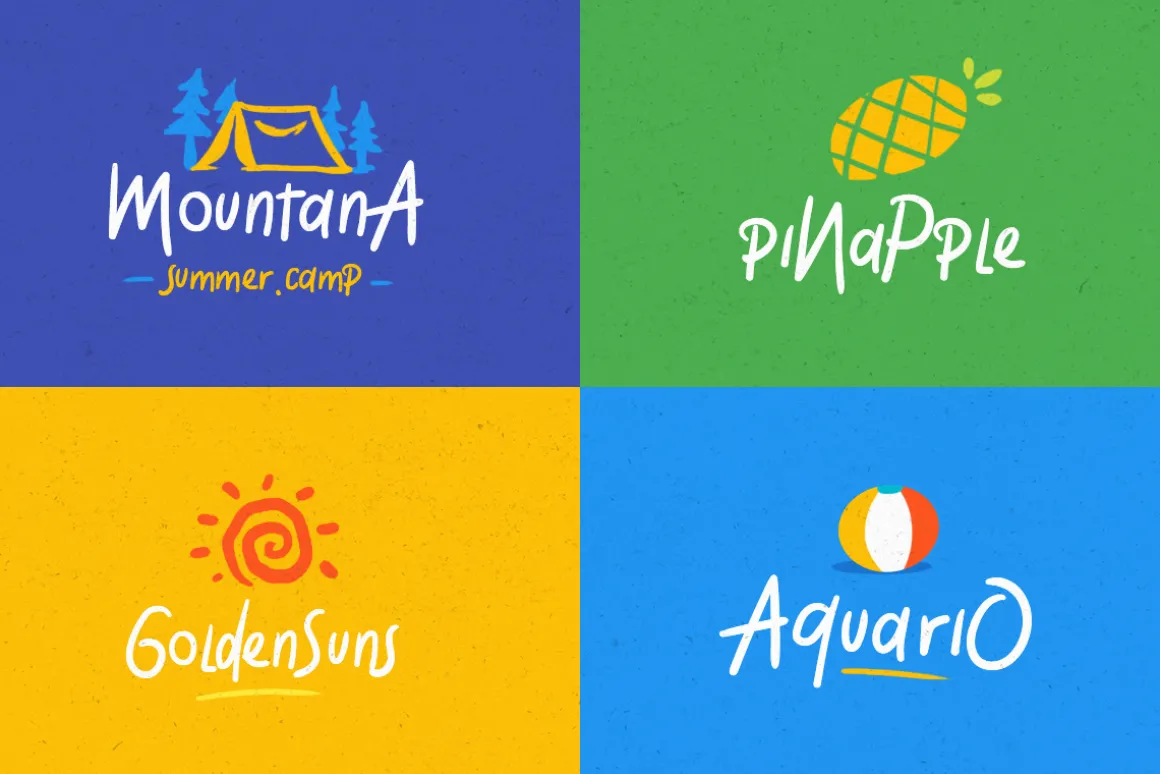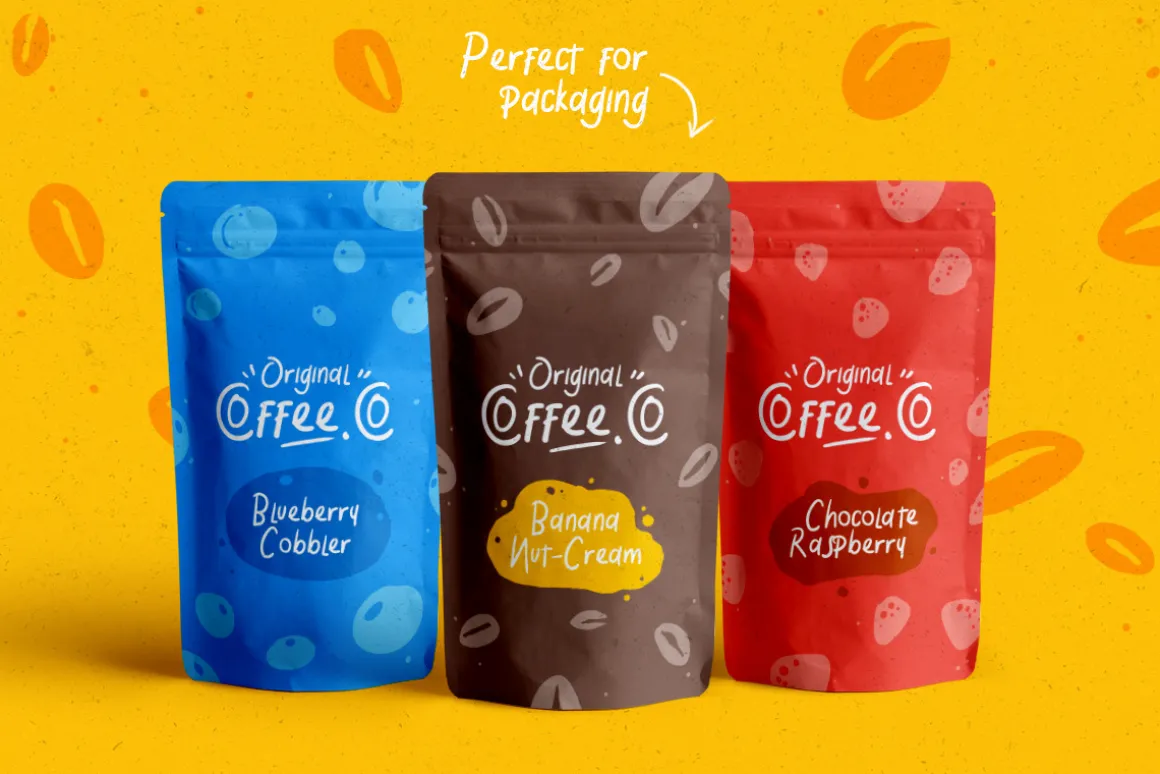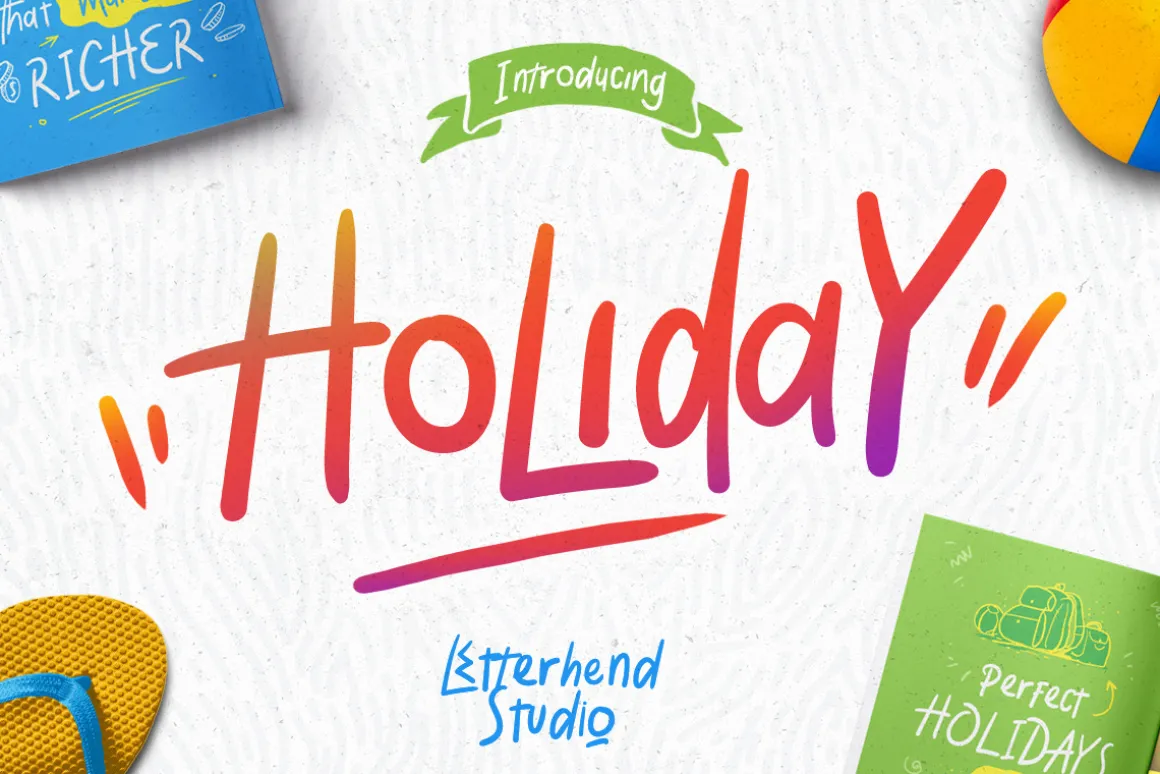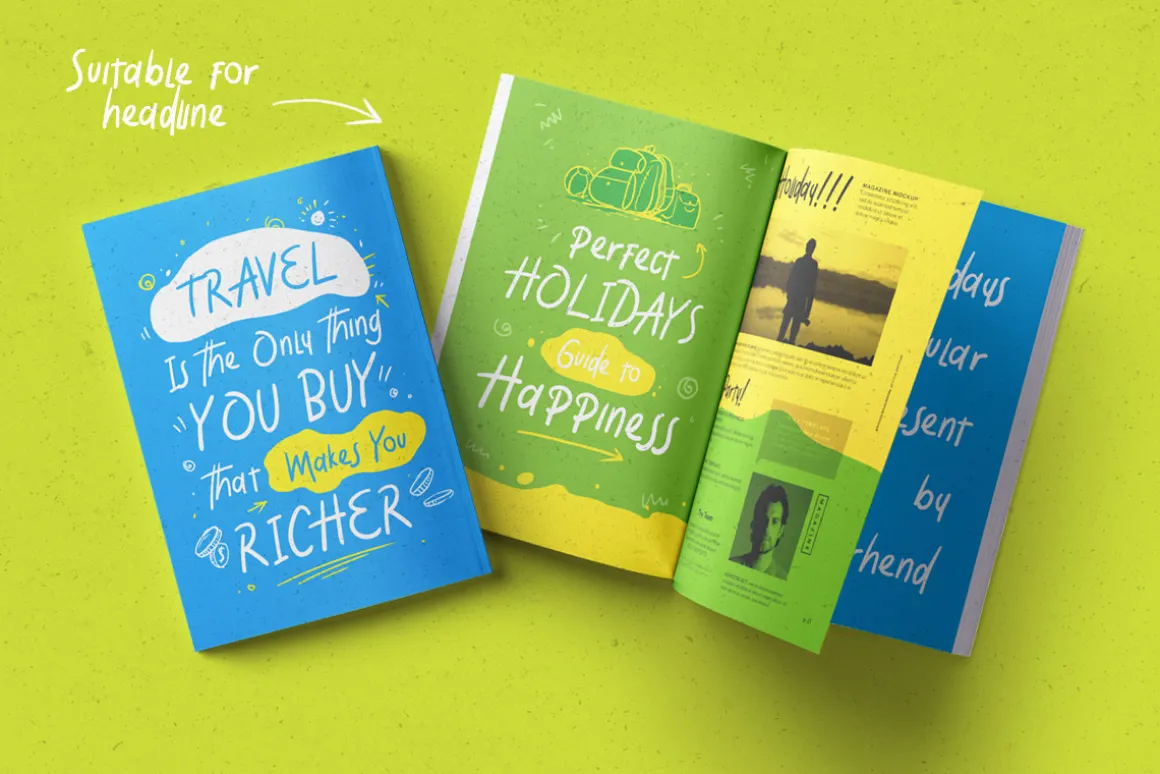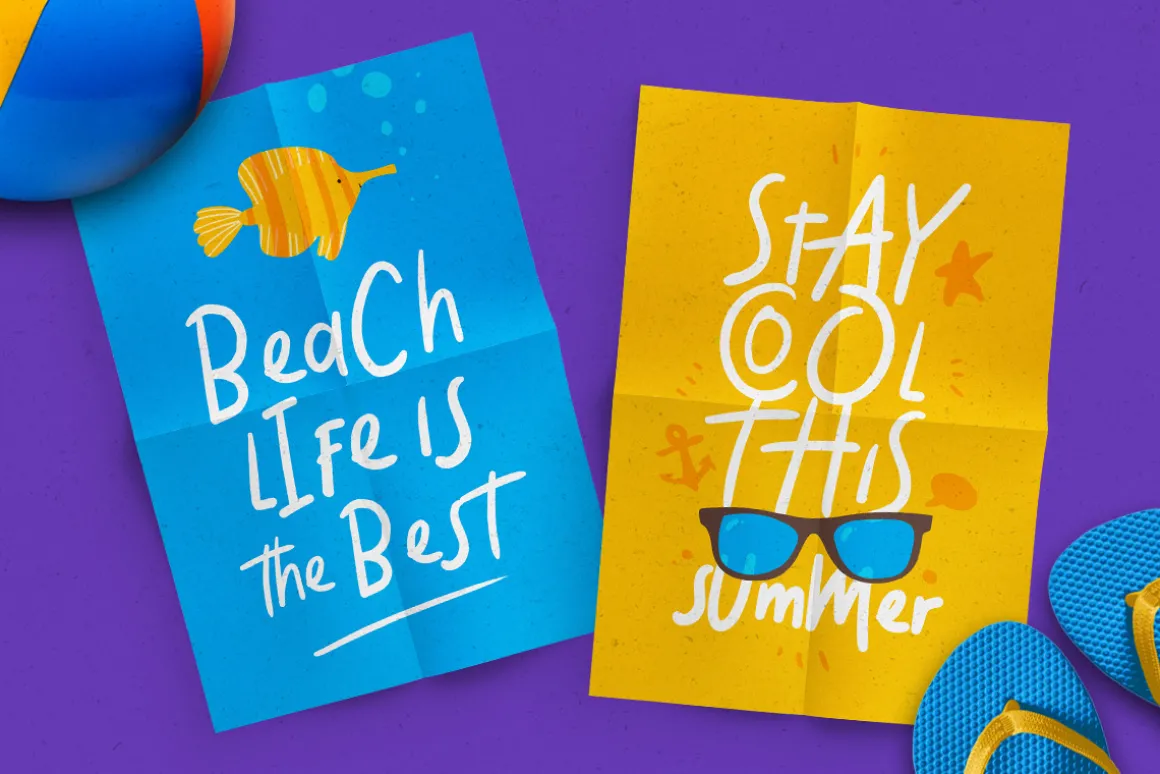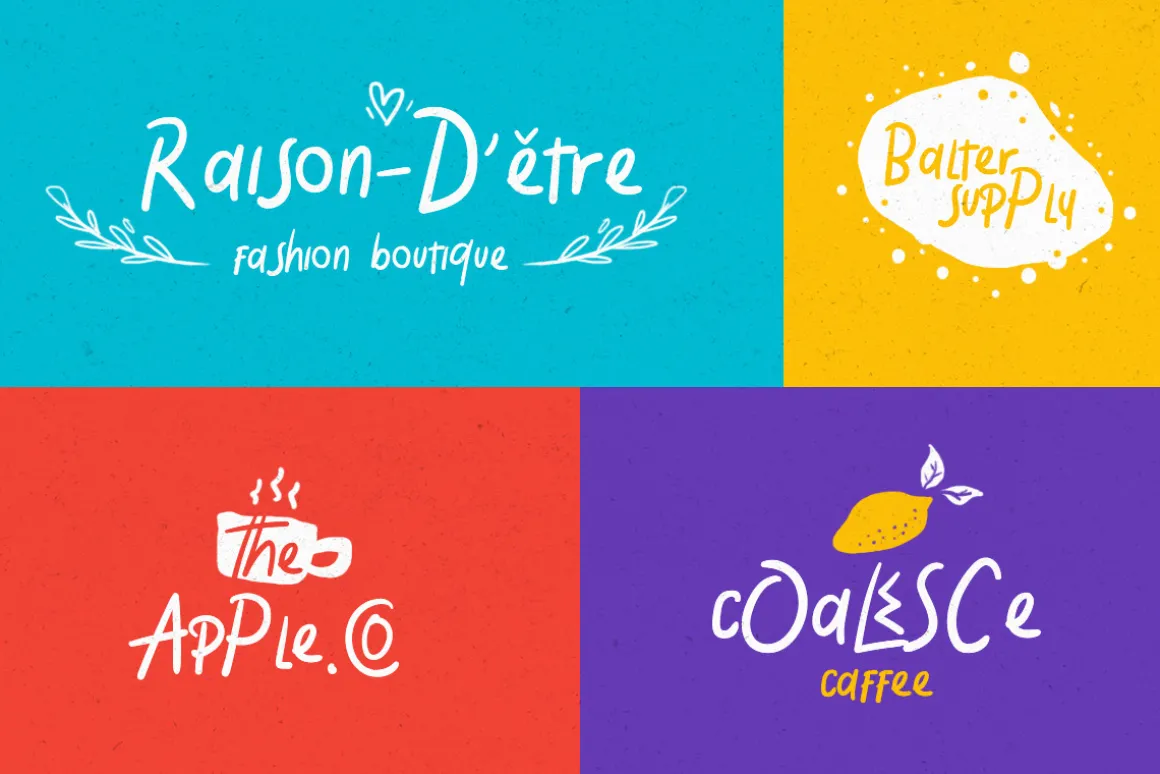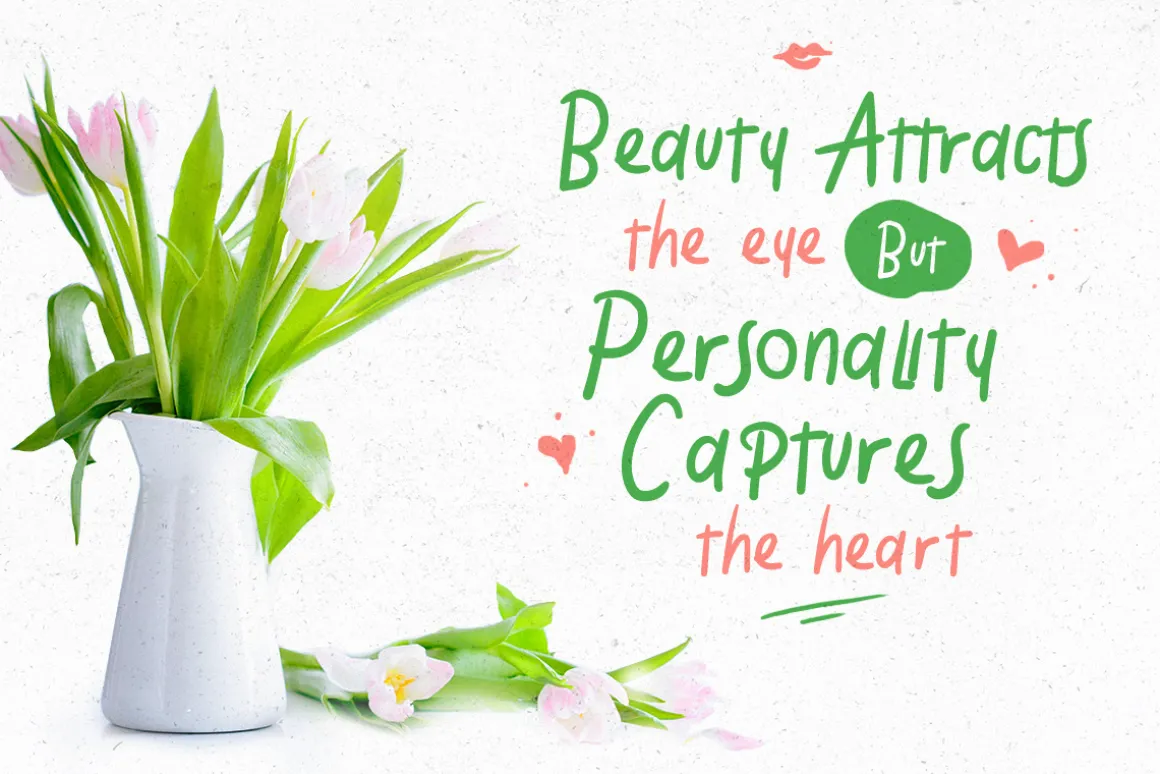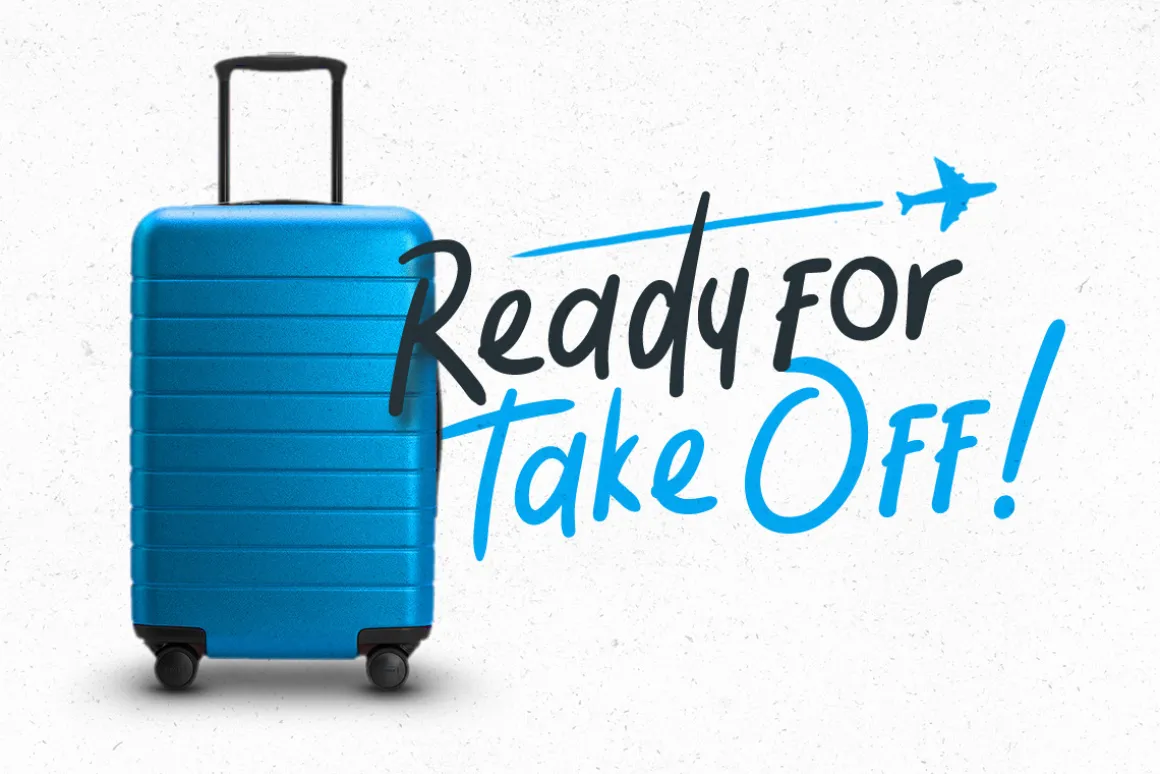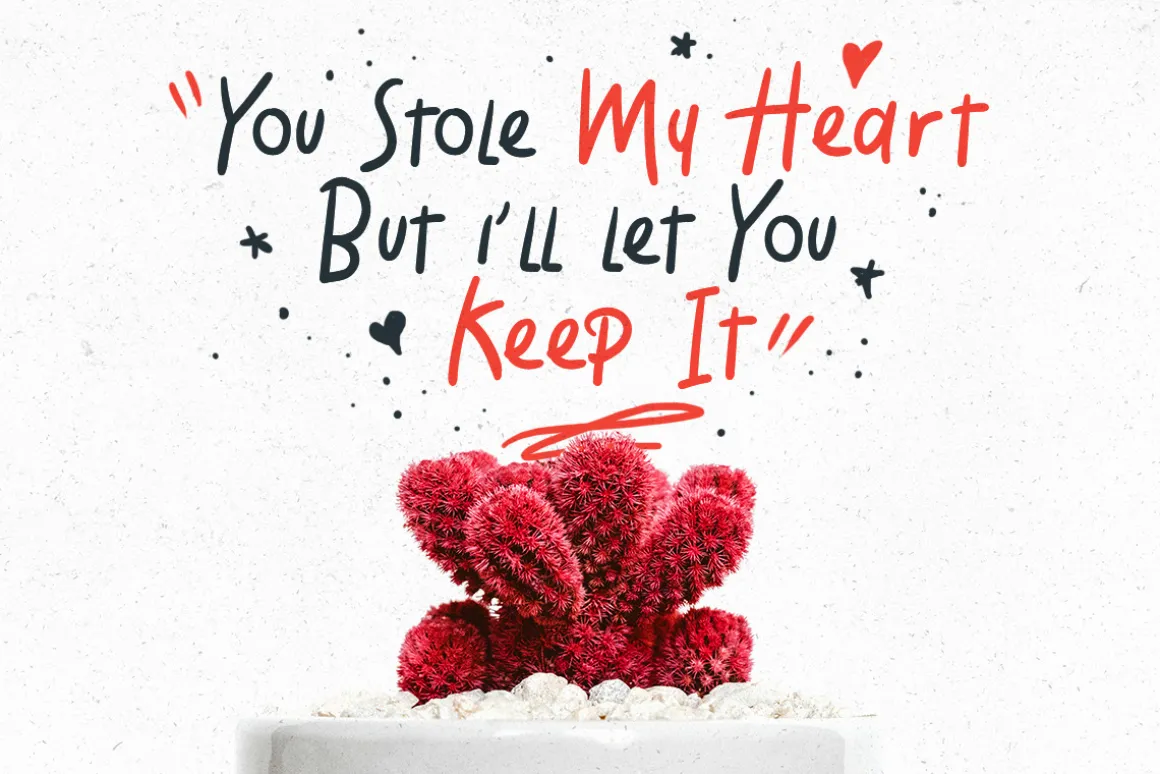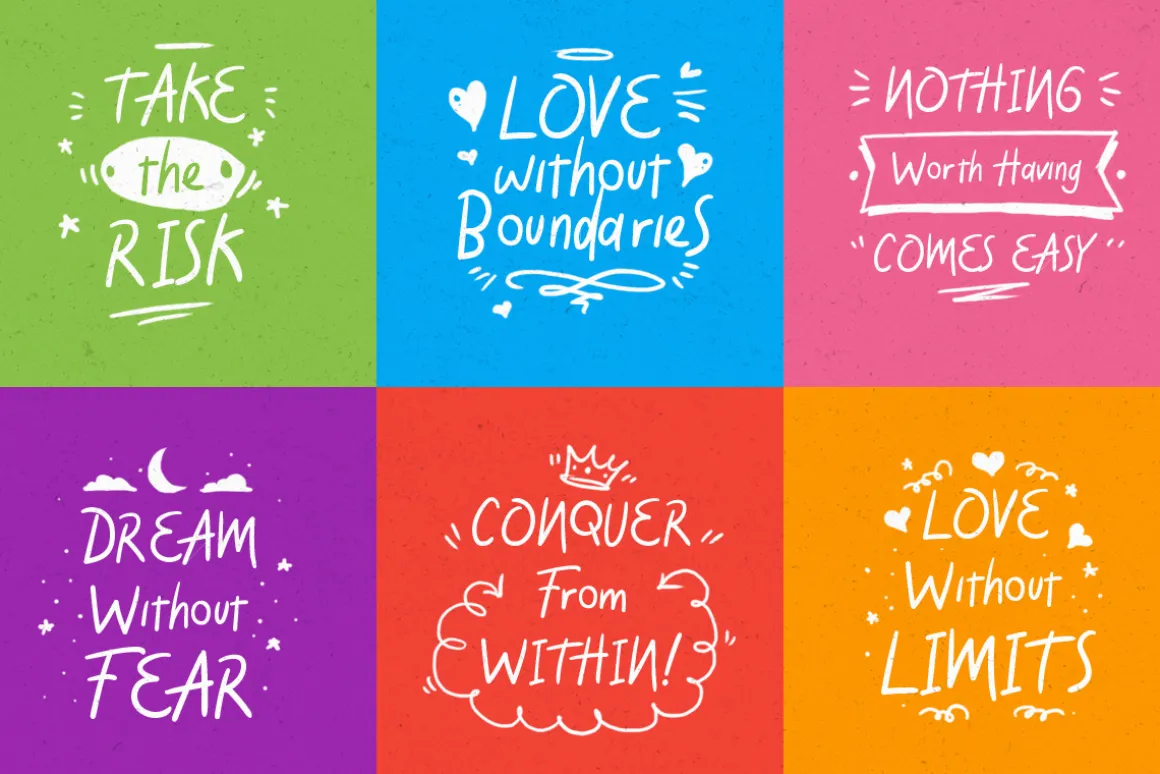
Introducing, Holiday Font! This playful yet casual typeface which is suitable to use in fun and playful design. This font is comes in uppercase, lowercase, punctuations, symbols & numerals, stylistic set alternate, ligatures, etc.